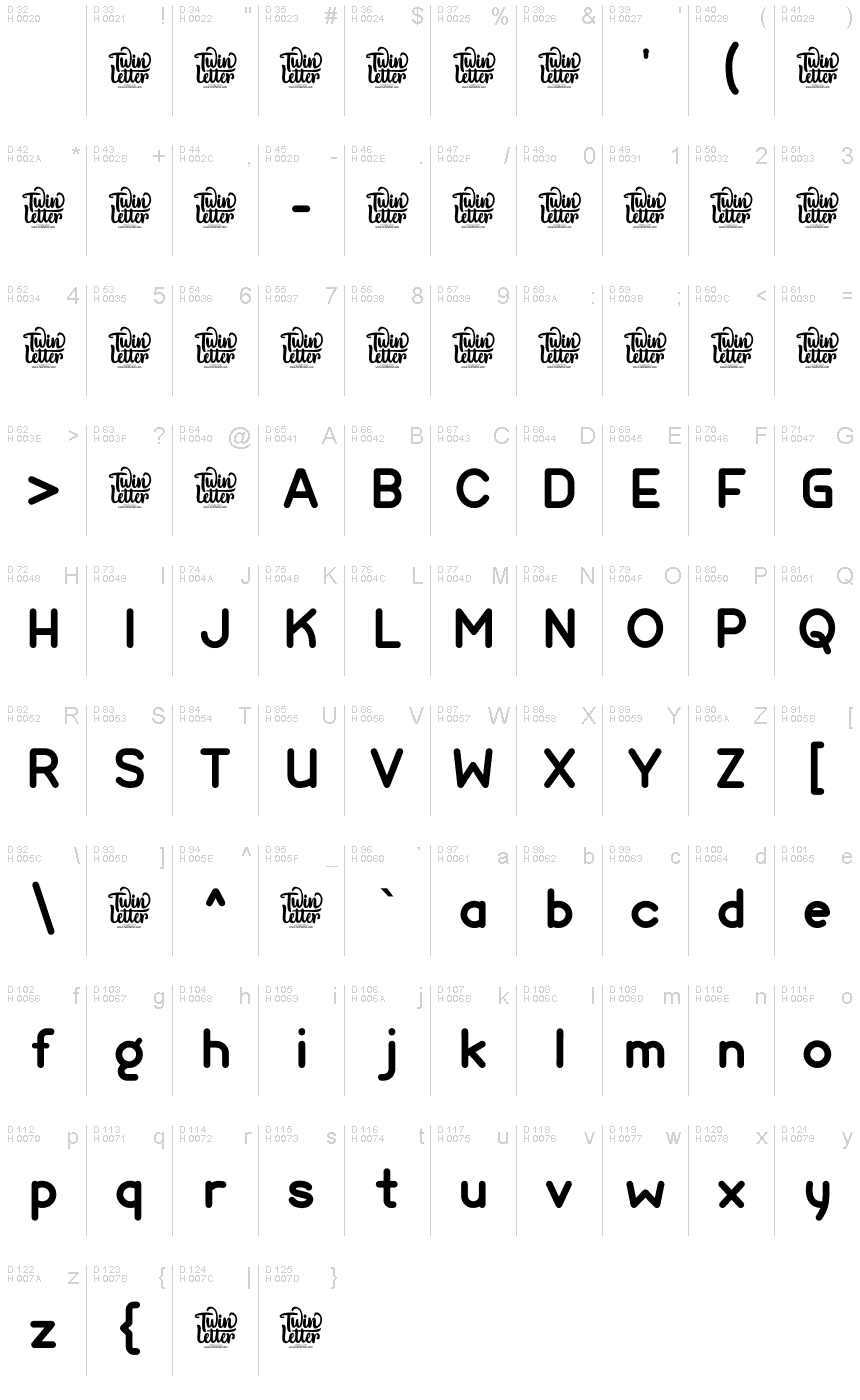
KIMORA Black Personal Use
KIMORA Black is a stunning rounded sans serif font designed by twinletter. Its semi-bold weight gives it a noticeable presence, while its smooth curves create a friendly and approachable feel. This font is perfect for projects that require a balance of professionalism and personality, such as branding, packaging design, social media graphics, and editorial layouts. Use KIMORA Black to create eye-catching headlines or to add emphasis to important information in body text. With its unique style and versatility, KIMORA Black is sure to elevate any design project.